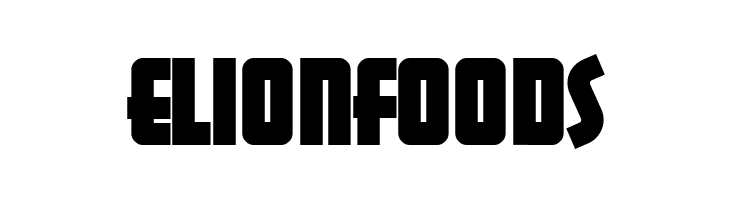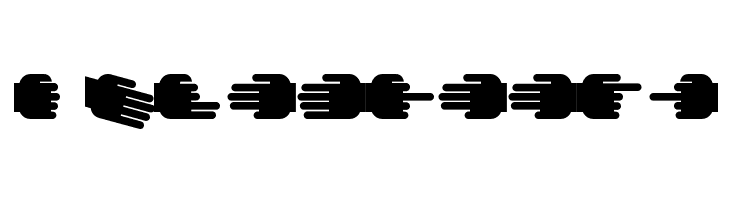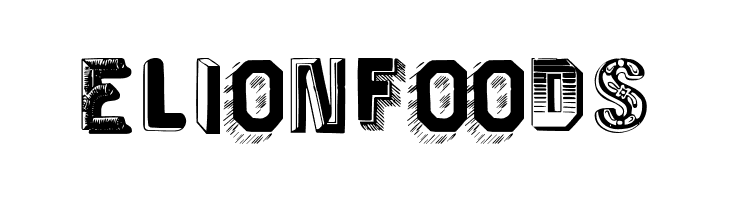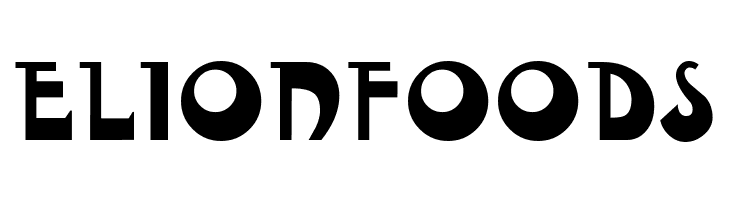
( Fonts by Anita Wainer - www.jamondelmar.com )
A playful, matchstick-themed decorative font ideal for creative projects.
A bold, geometric font with a strong visual impact.
( Fonts by Steve Ferrera )
A bold, narrow font with a modern and impactful style.
A modern, italicized font with a sleek and dynamic style.
( Fonts by Tobias Benjamin Kohler - www.uncia.de )
A sleek, italicized font with smooth curves and a modern aesthetic.
Intricate ornamental designs featuring floral motifs and elegant flourishes.
Ornate, pictorial font with devil and mythological illustrations.
( Fonts by Klaus Johansen - www.listemageren.dK )
Illustrative depiction of athletes, not a font.
A decorative font featuring unique bat silhouettes for each character.
A decorative and artistic font with intricate, abstract shapes.
A geometric pattern with parallel lines creating dynamic and rhythmic visual flow.
A set of bold, geometric symbols with a modern, artistic style.
A collection of intricate floral and leaf decorative elements for elegant design projects.
Ornate, botanical-themed decorative font with floral illustrations.
A series of abstract patterns using dots and lines for a modern, artistic look.
A decorative and eclectic font with unique, vintage-inspired letter designs.
( Fonts by Rick Mueller )
A bold, modern font with geometric shapes and sharp angles.
An abstract, Bauhaus-inspired decorative font with geometric and artistic character designs.
A decorative font featuring diverse hand gesture illustrations.
A playful and nostalgic set of 1950s-themed icons with bold, retro designs.
Illustrative font using street scenes and figures as characters.
An abstract, artistic font with intricate, swirling designs.
A geometric, abstract font with angular, fragmented characters enclosed in squares.
An abstract, geometric font with intricate patterns and constructivist influences.